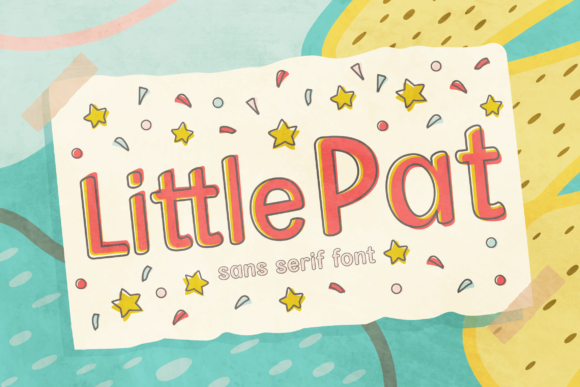
Indulge in the enigmatic allure of Little Pat Font, a masterpiece crafted by the ingenious Sawarna Studio. Embark on a typographic adventure where creativity knows no bounds.
This captivating display font exudes a charm that will ignite your imagination. Its graceful curves and playful strokes dance effortlessly across any design, casting a spell that captivates and inspires.
Picture the allure of a captivating business book, where Little Pat Font graces the cover with unwavering confidence. Its bold strokes command attention, drawing readers into a world of intrigue and innovation. The font's inherent versatility empowers you to transform ordinary designs into extraordinary masterpieces.
Whether you seek to craft enchanting cards that convey heartfelt emotions or create labels that ignite a touch of elegance, Little Pat Font is your unwavering companion. Its enchanting presence will transform your creations into a symphony of visual delight, leaving an indelible mark on all who encounter it.
Step into the realm of Little Pat Font today and unlock a world of endless creative possibilities. Let it be your guiding light, illuminating your designs with the brilliance of imagination.